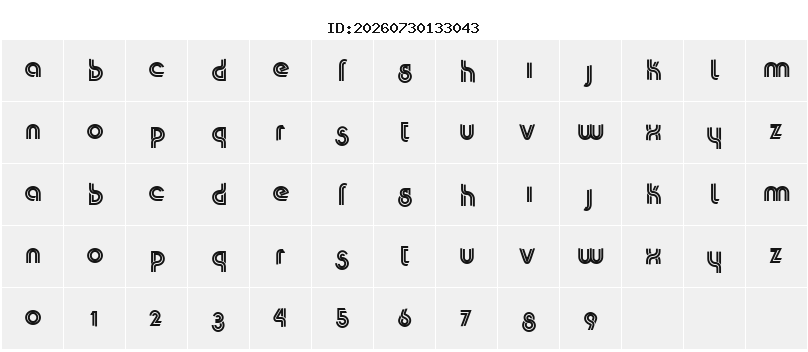
• Font Name: K22 Plural
• Designer: Vicente Rojo, Toto
• Description: Based on the typeface designed by Vicente Rojo for the Mexican magazine, Plural, in the early 1970s. It is not known if the font exists in digital format. Toto Kyusi, Pilipinas toto@ispx.com.ph + to22to@gmail.com October 10, 2013
K22 Plural.ttf is a modern, elegant sans-serif font designed for ultimate readability and visual harmony. Perfect for branding, headlines, web design, and print materials.